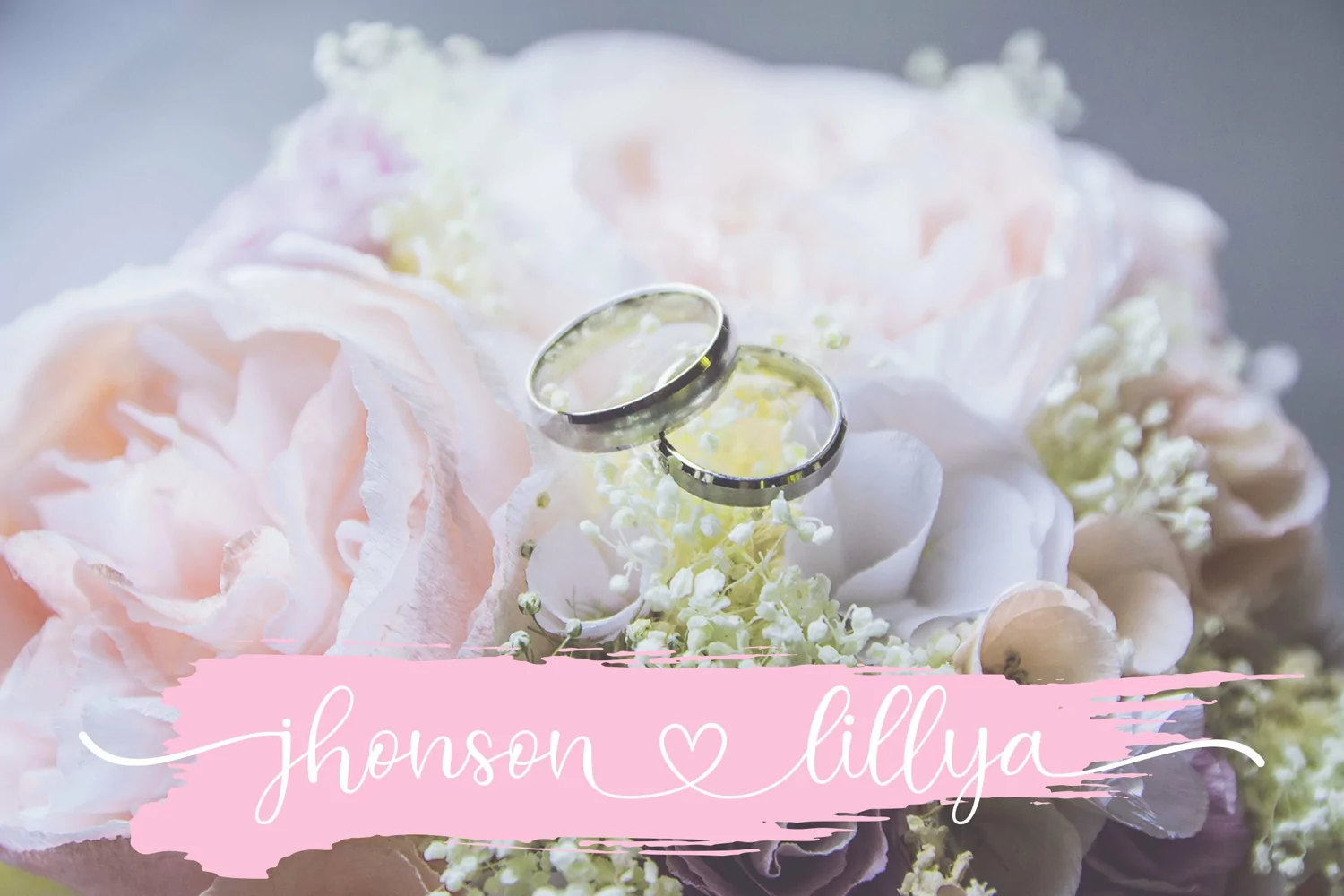
Hello Sweetie is a modern calligraphy script includes full set of lovely uppercase and lowercase letters, multilingual symbols, numerals, punctuation and begining & ending lowercase love. is perfect fo you up coming projects. such as modern invitation design, branding stationery design, wedding, birthday, etc and any projects.